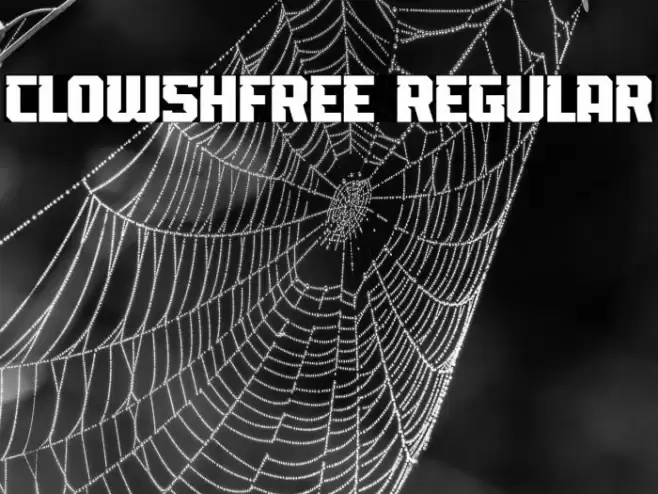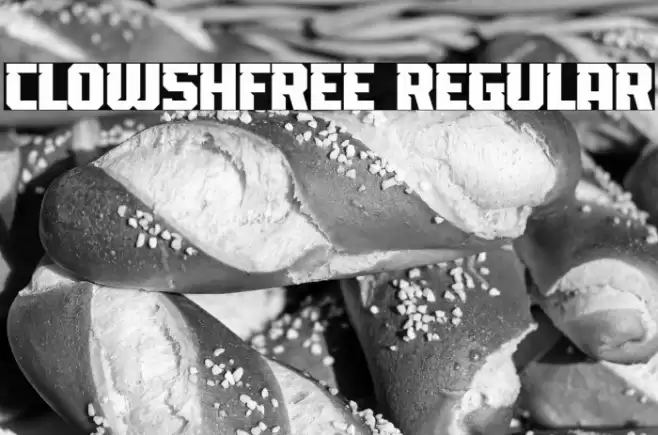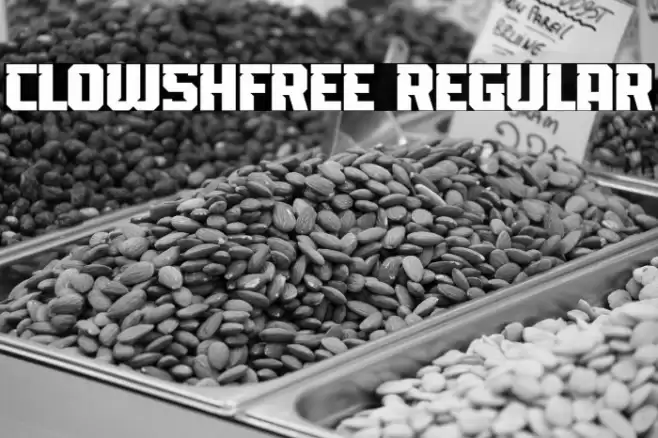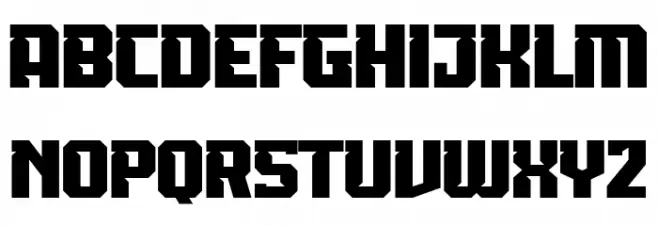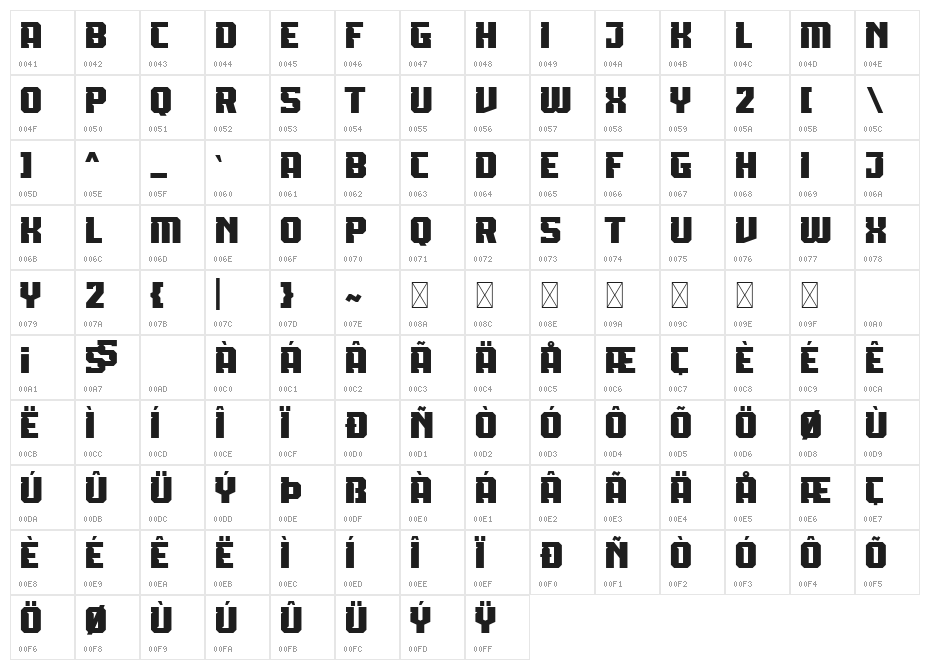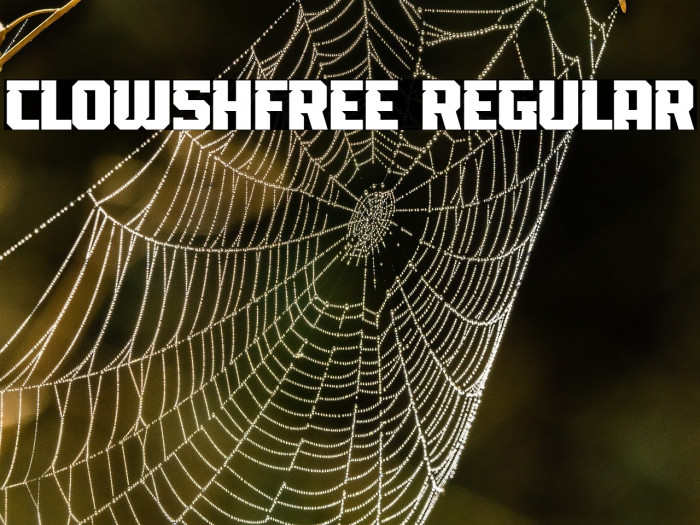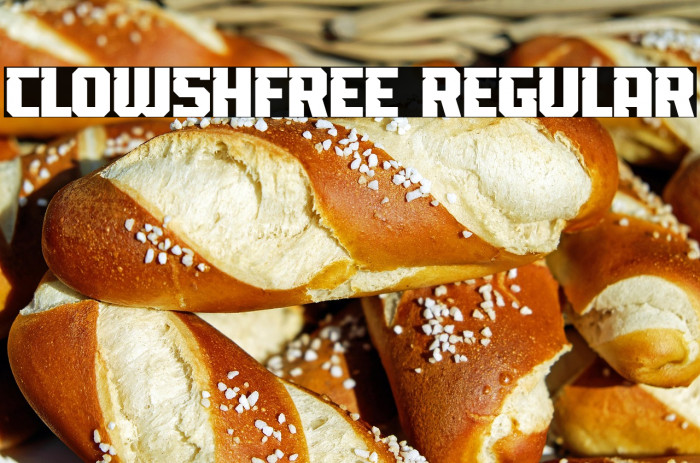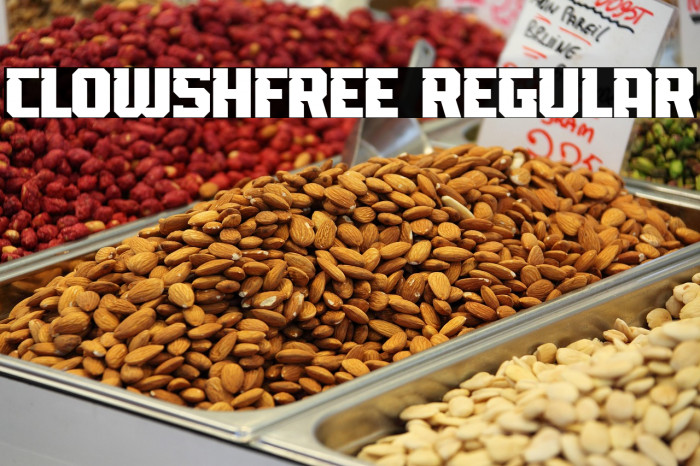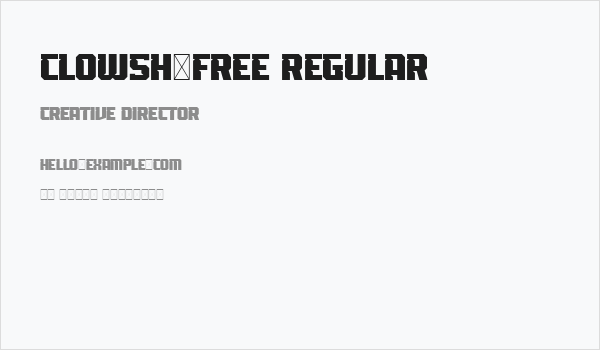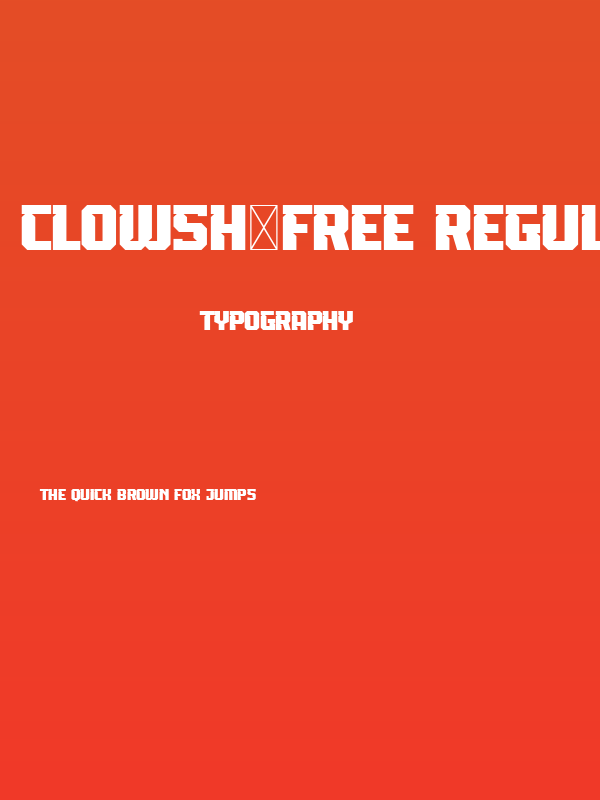
Clowsh-Free Regular Font
Clowsh-Free Regular Description
This font features a bold, geometric design with a strong presence. The characters are constructed with sharp angles and straight lines, creating a modern and industrial feel. The uppercase letters are particularly striking, with a blocky appearance that commands attention. The font maintains a consistent weight throughout, ensuring readability while delivering a powerful visual impact. Its unique style makes it suitable for projects that require a bold statement, such as branding, posters, and headlines. The spacing between characters is tight, contributing to its compact and cohesive look.
A bold, geometric font with a modern, industrial style from Regular fonts.
- Font: Clowsh-Free Regular
- Proposed Projects: Ideal for branding, posters, headlines, and any design needing a strong visual impact.
- Character Spacing: Tight